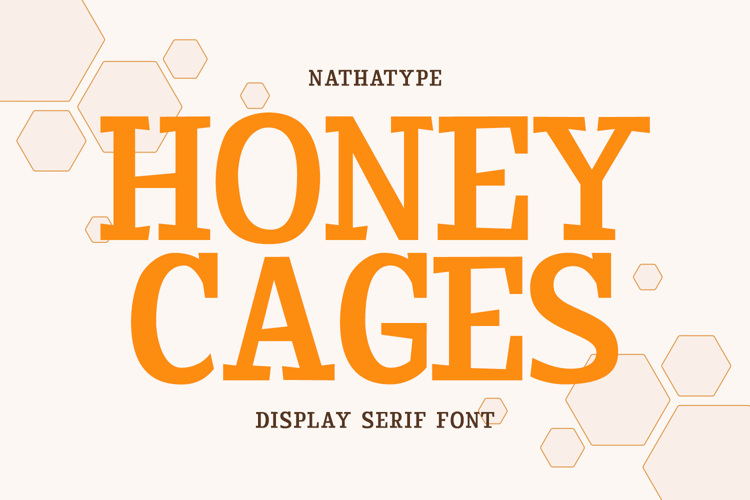
Honey Cages Font
Product Description:
Honey Cages is a lovely display serif font in thick weights to show friendly, expressive, motional, balanced nuances between functionality and creativity. Generally, the letter shapes are round with consistent heights and wide spaces. There are also curved wipes on some of the letters’ edges to add decorative styles.
Features:
• Ligatures
• Stylistic Sets
• Multilingual Supports
• Numerals and Punctuations